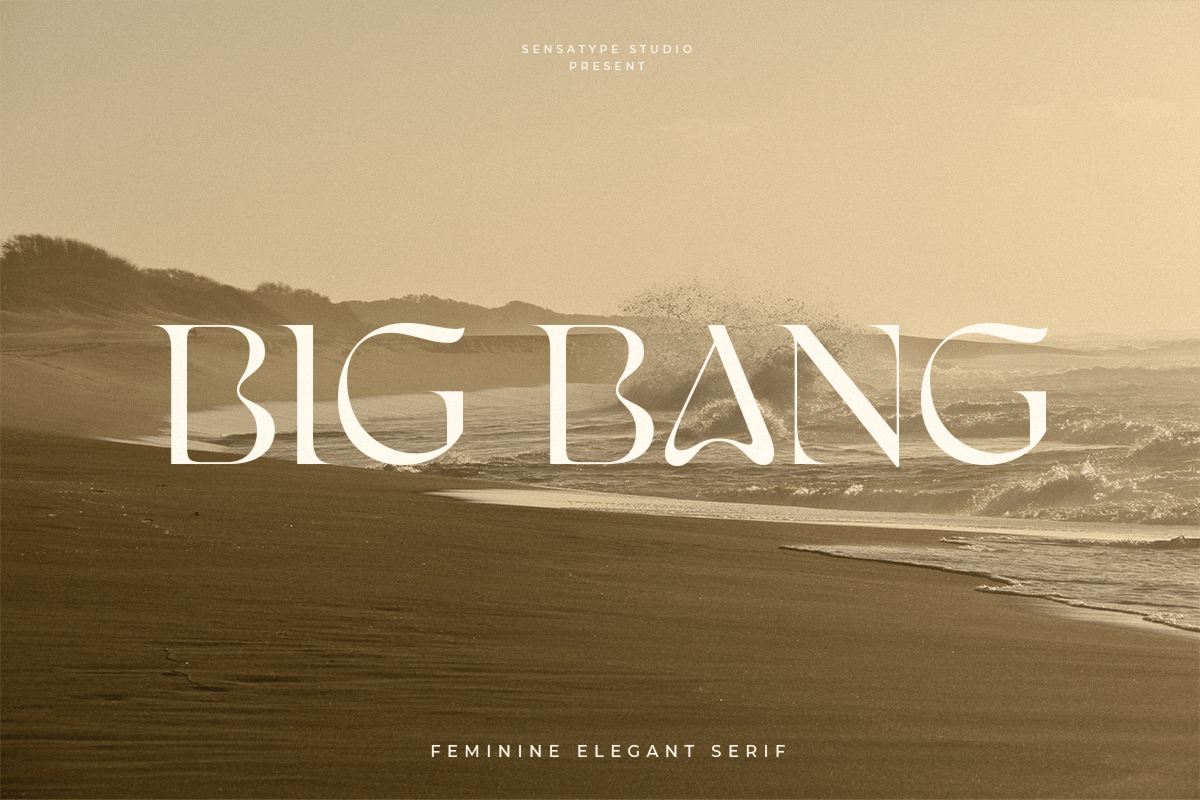
Big Bang
-Feminine Elegant Serif
Big Bang
Big Bang is a Feminine Elegant Serif
A new Display Serif font that we created special for logo and branding needs, with extra unique shape that will add your brand value. It so nice to leverage designer or product owner that need solutions to make their design look more gorgeous and modern. And specially for Big Bang font, We prepared any alternate characters to help you create unlimited variations for your creative needs specially for logotype or wordmark.